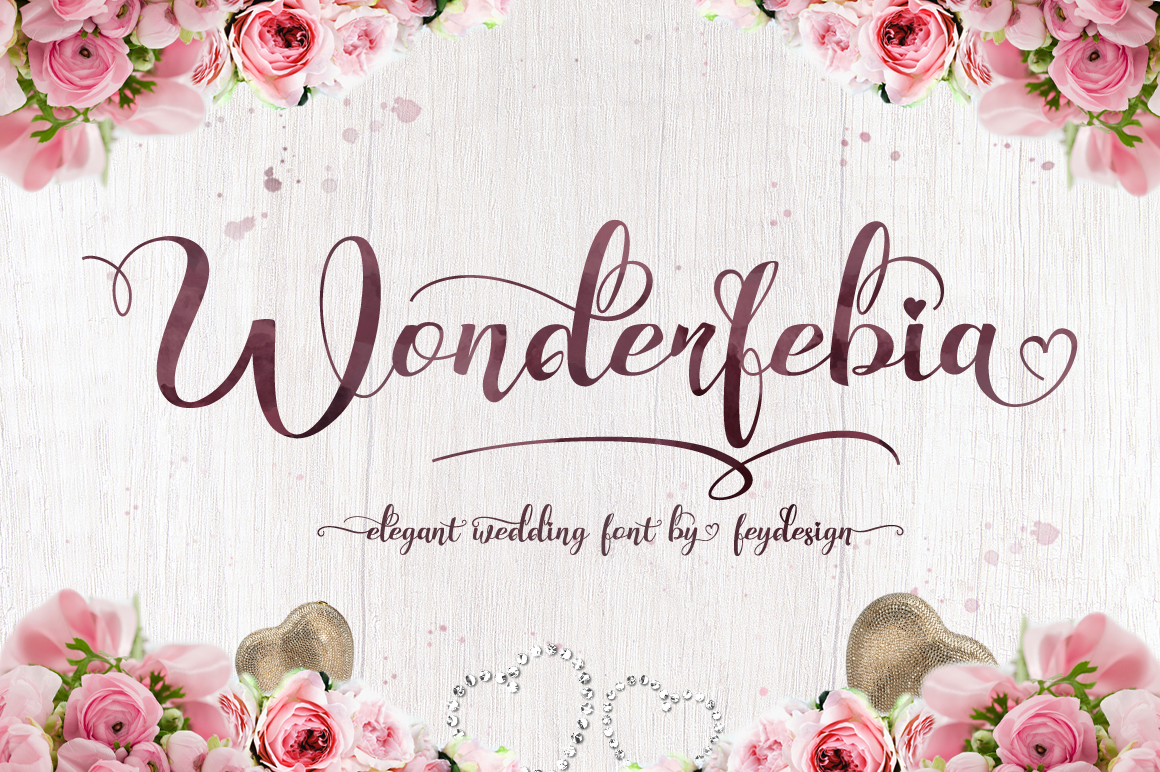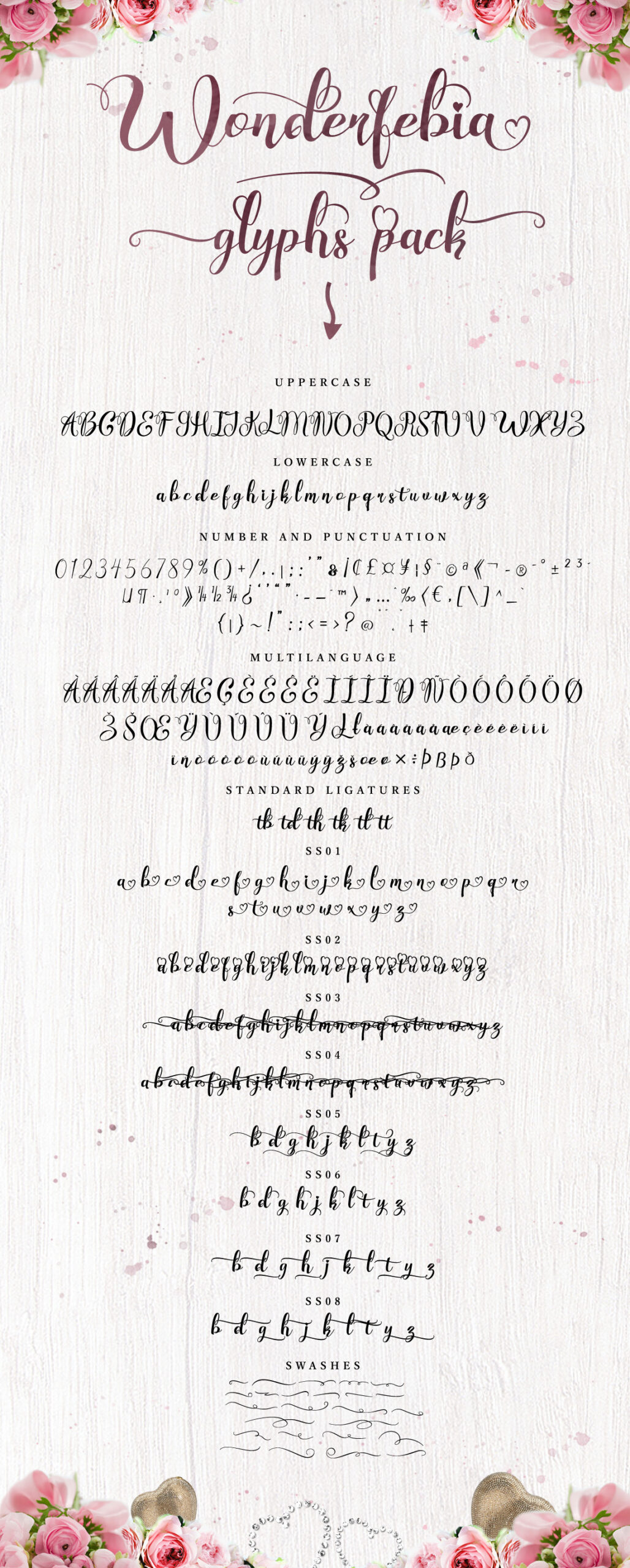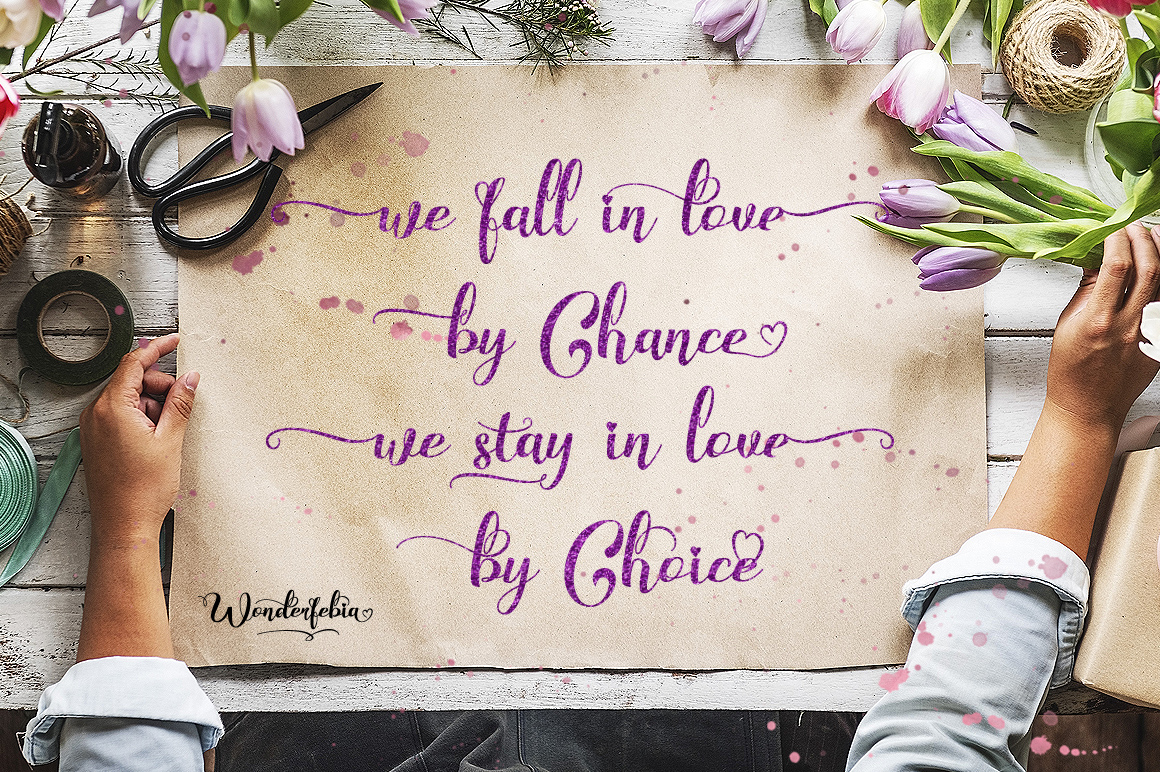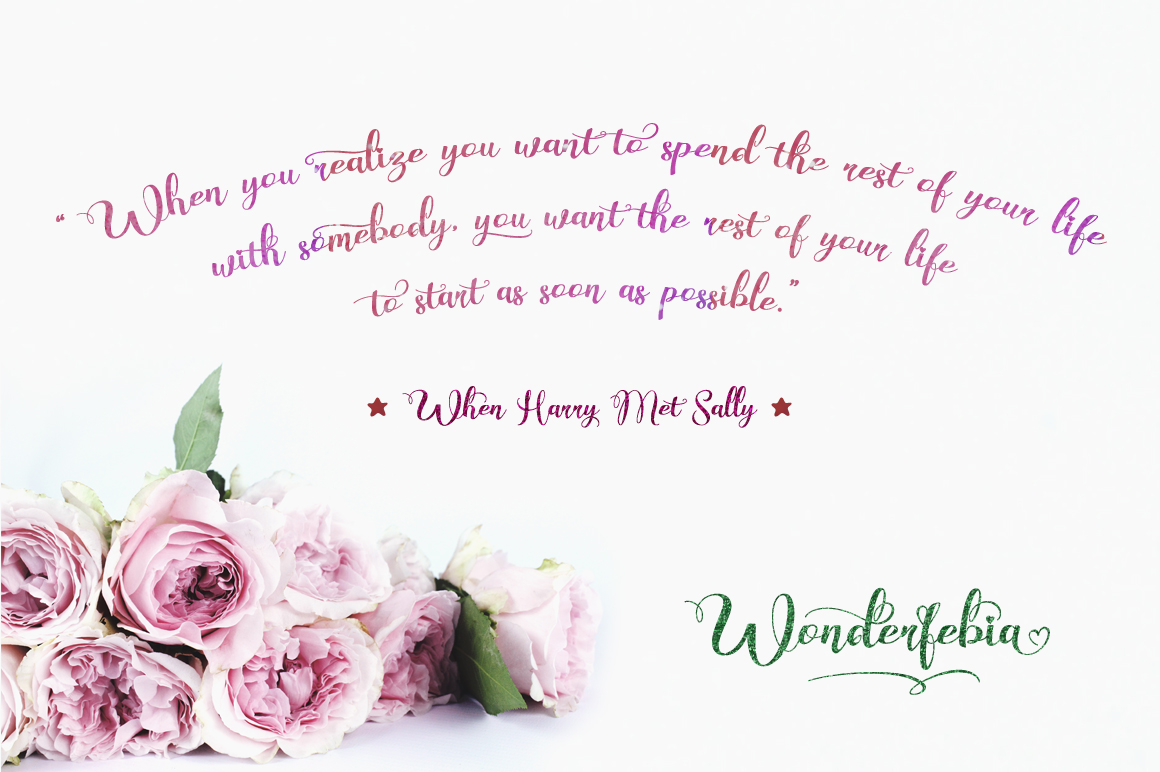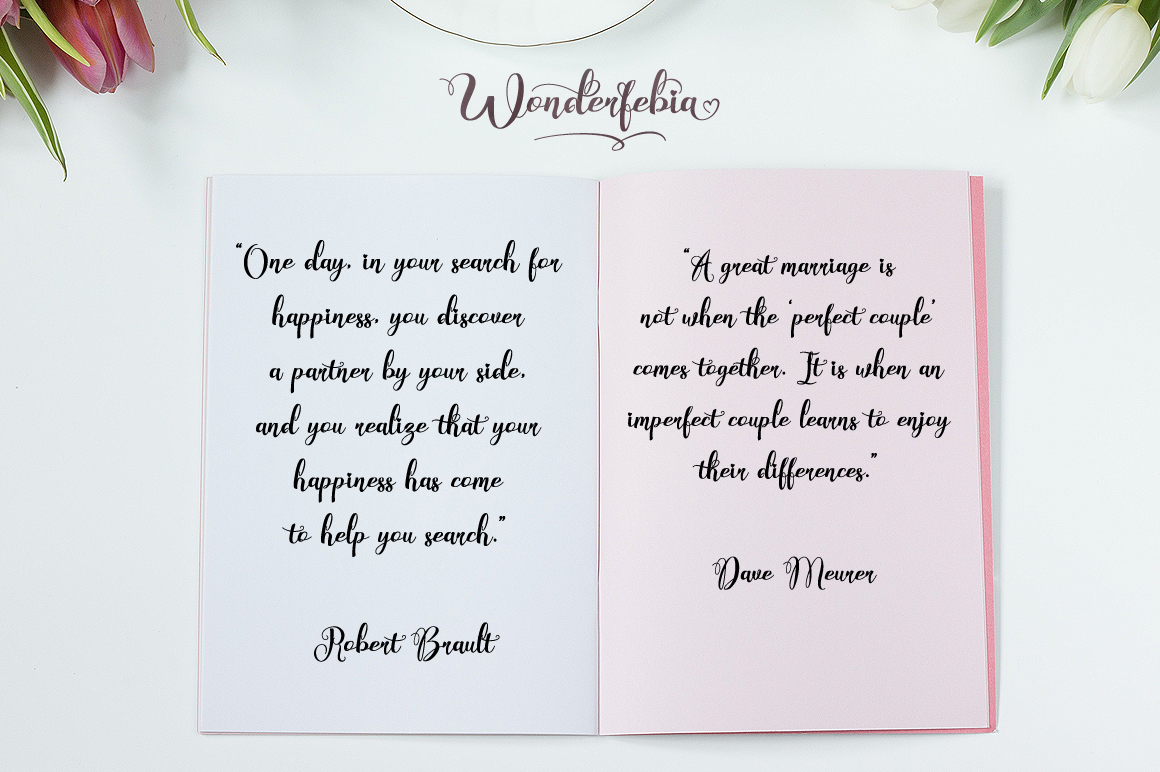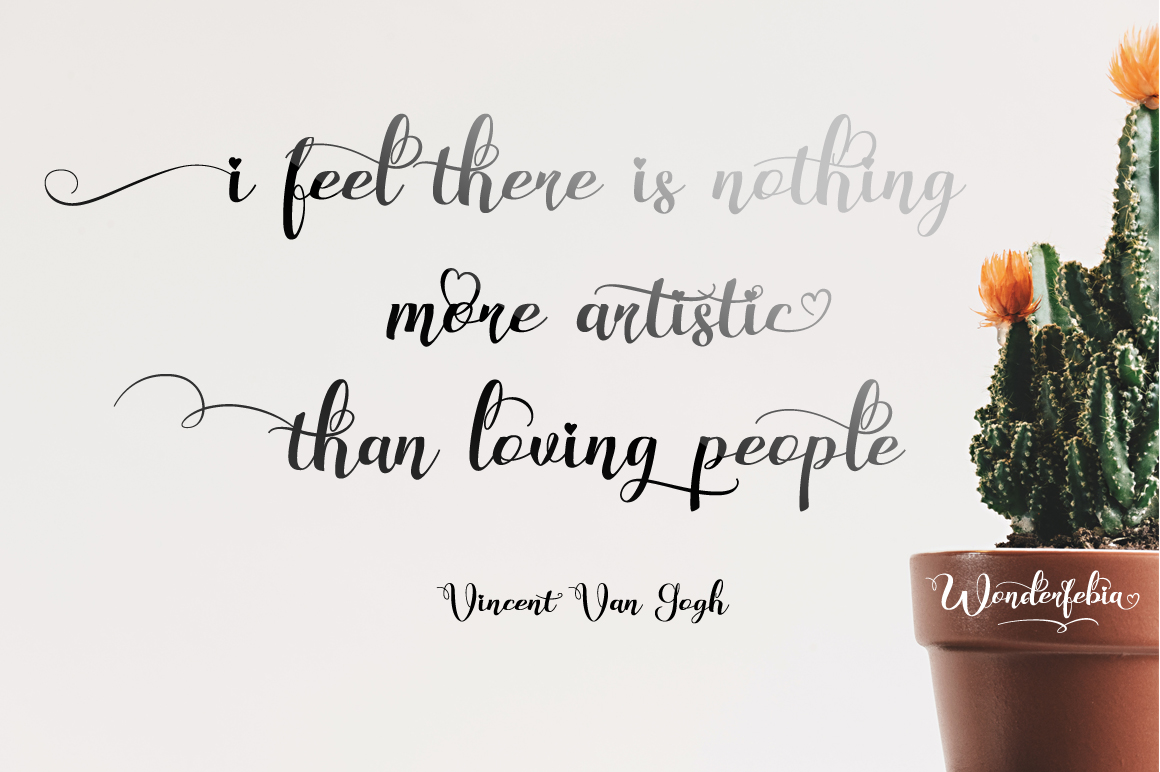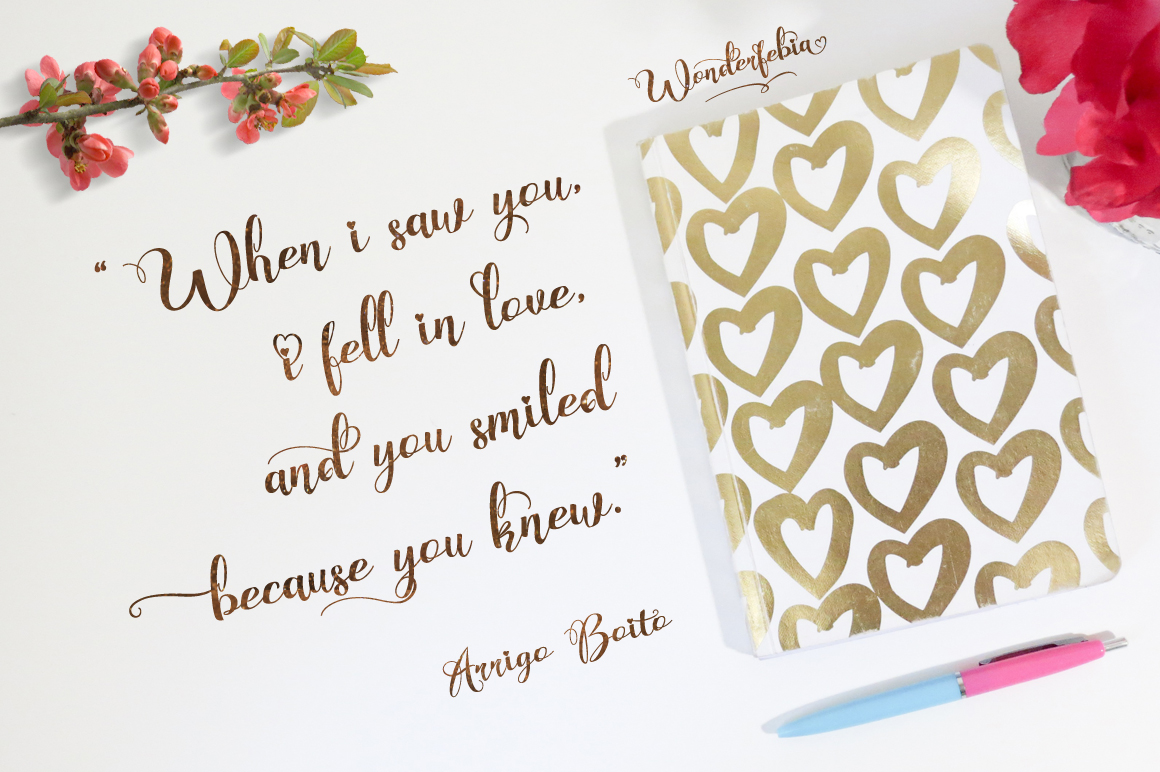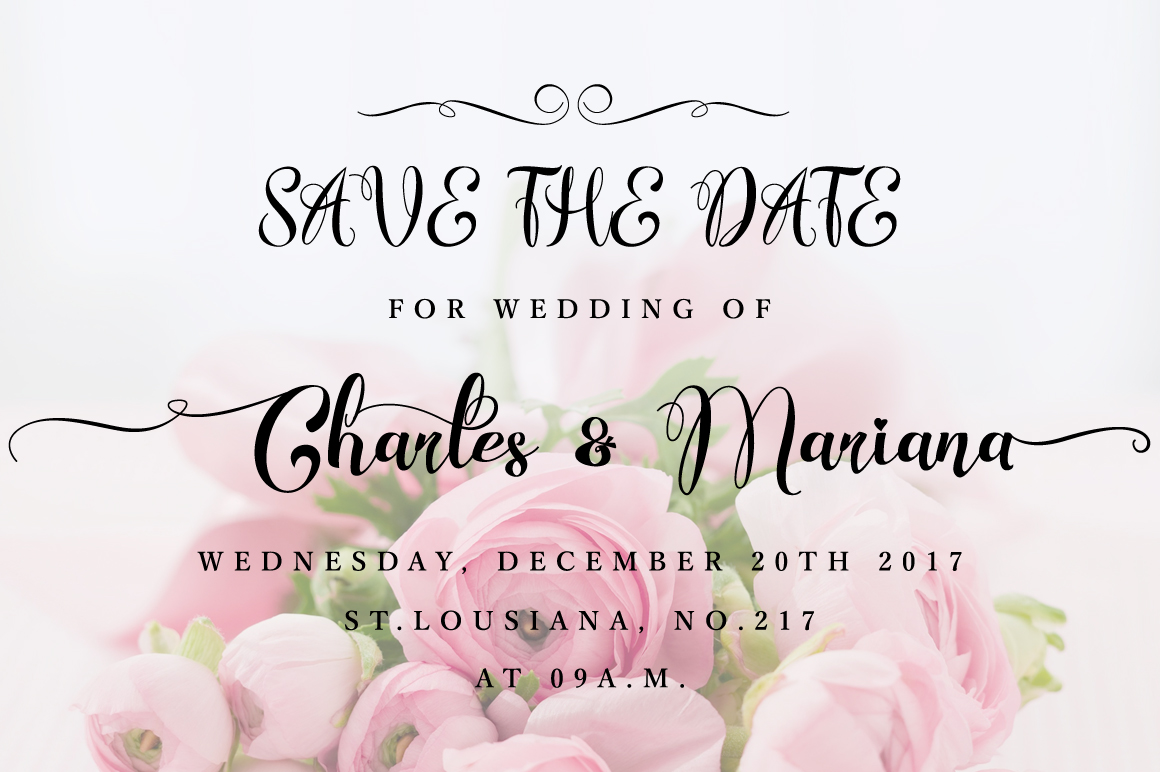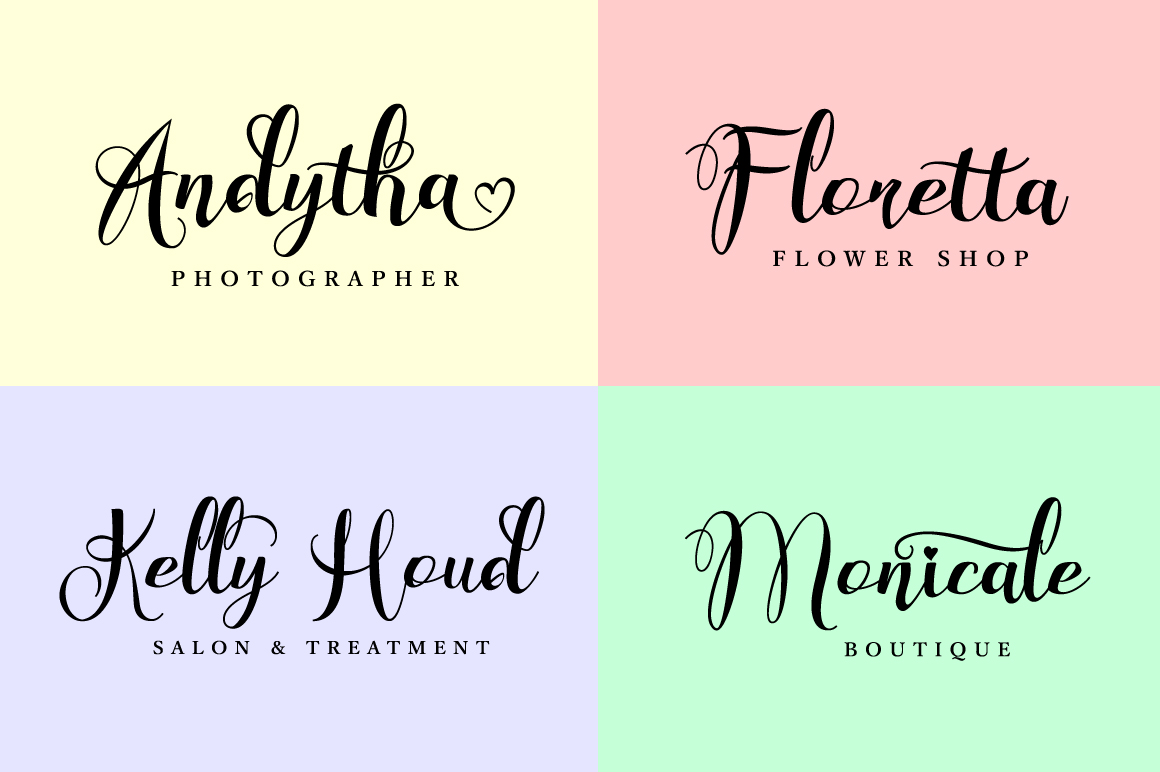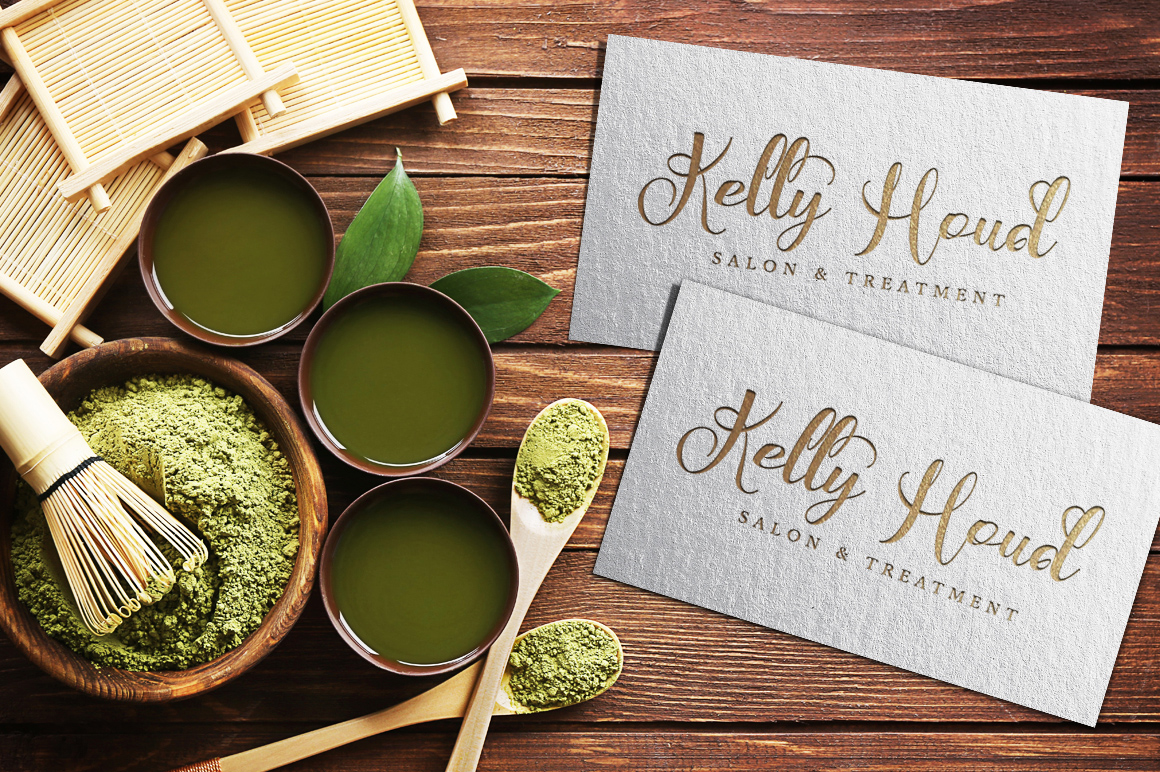
Wonderfebia Font
About Wonderfebia Font
Wonderfebia is a fun and springy script font, suitable for a wide range of beautifully crafted projects. This font is a versatile script that comes with tons of alternates for truly impactful designs!